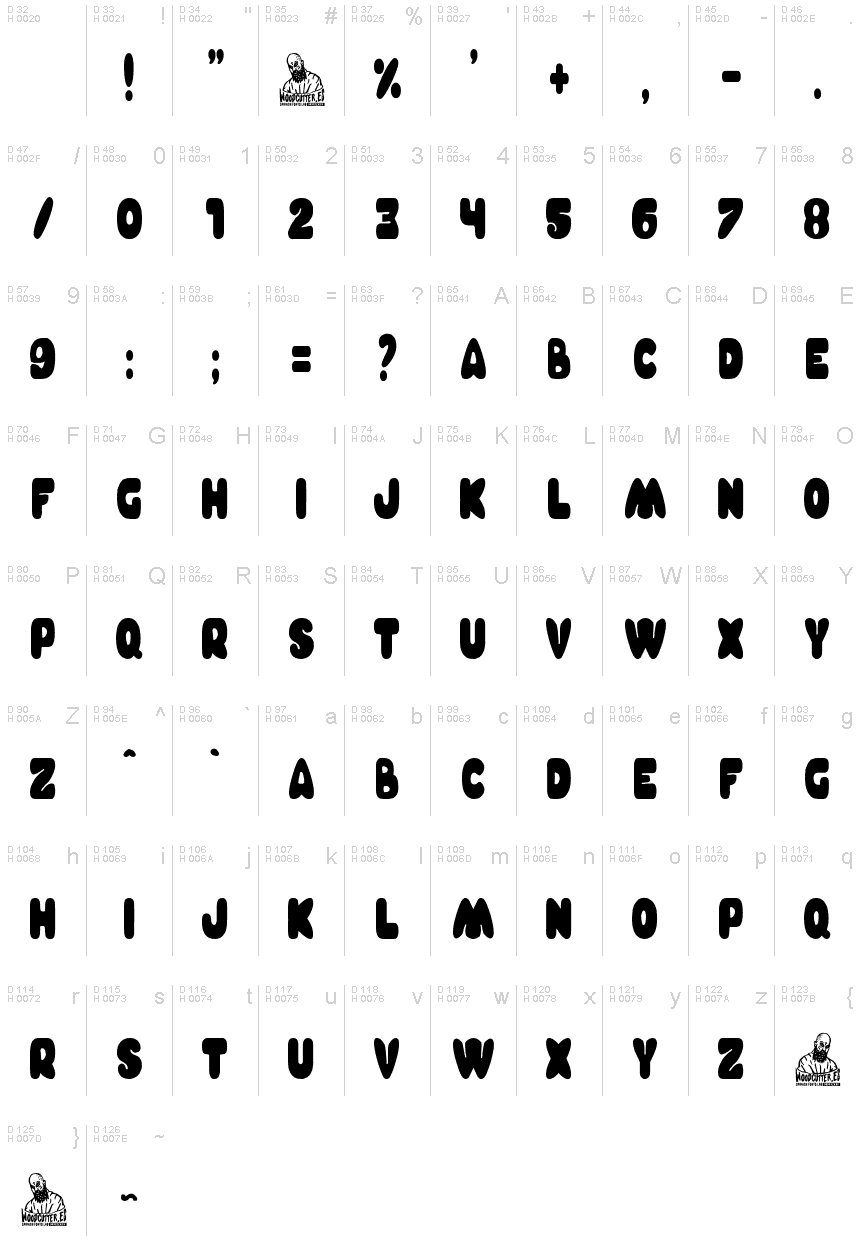
Charnego Nation
Charnego Nation, designed by Woodcutter, is an extra-bold display font with a condensed width that adds a playful touch to any project.
Its cartoon style makes it perfect for children's books, animated movies, and video game titles. With its eye-catching design and bold letterforms, Charnego Nation stands out on posters and flyers for events such as comic conventions or theme parties. This font brings a whimsical vibe to logos and branding materials for toy stores or entertainment companies.
Charnego Nation.